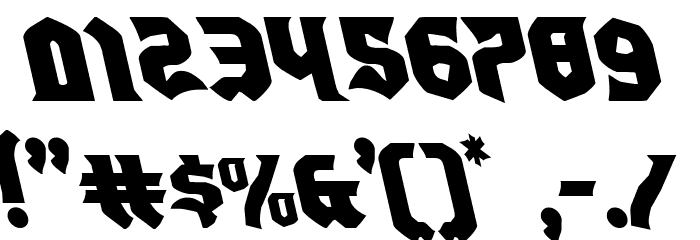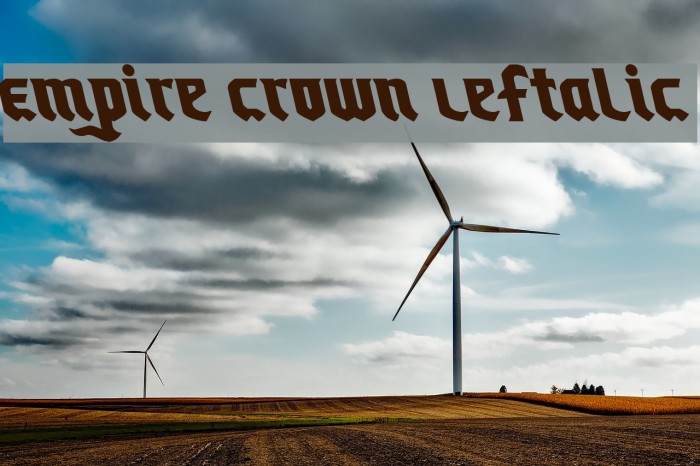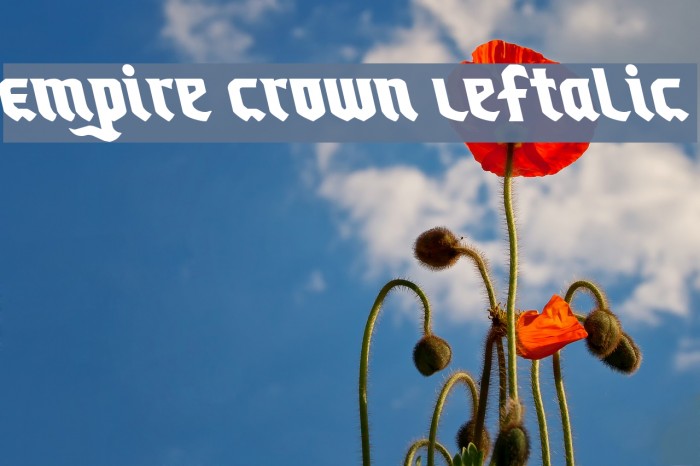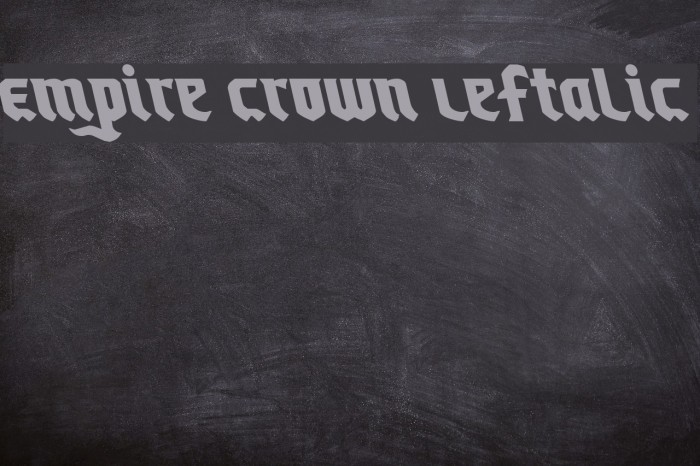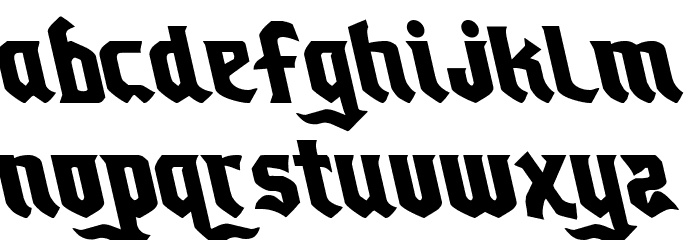
Empire Crown Leftalic Font
Empire Crown Leftalic Description
This font exhibits a bold and dramatic style with sharp, angular edges and a distinct leftward slant, giving it a dynamic and energetic appearance. The characters are heavily stylized, with exaggerated serifs and a gothic influence that evokes a sense of medieval or fantasy themes. The uppercase and lowercase letters maintain a consistent design, while the numerals and special characters complement the overall aesthetic. The font's boldness and unique style make it stand out, suitable for projects that require a strong visual impact.
| Use Case | Logos, Headlines, Posters |
| Proposed Projects | Ideal for fantasy-themed designs, video game titles, posters, and branding that requires a dramatic and bold statement. |